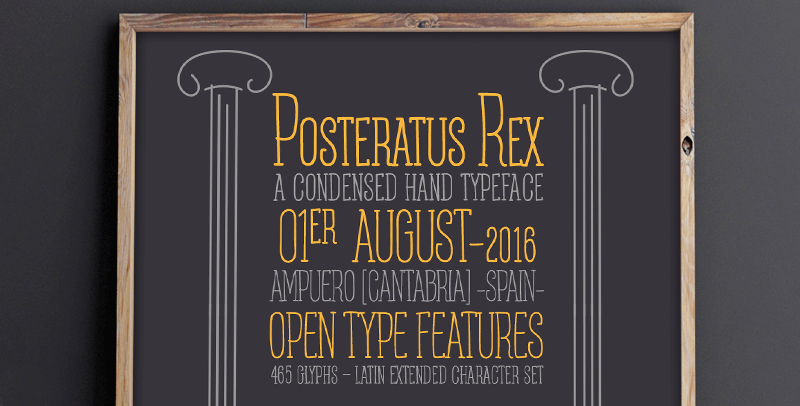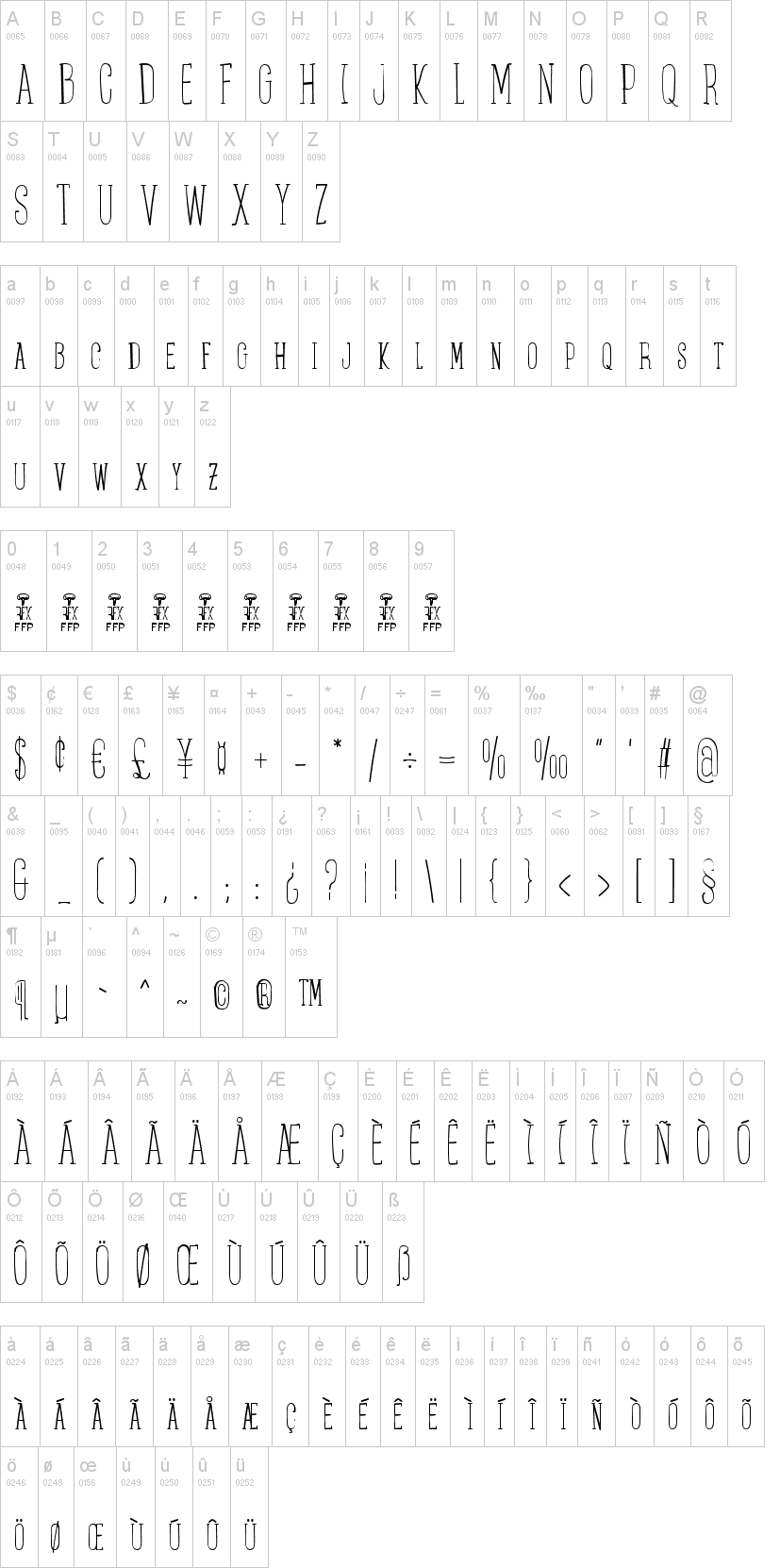
Note of the authorPosteratus Rex is a very condensed typeface handwritten with small slab-serif and lowercase letters in small caps, the font has a large high contrast between the upper and lower case. It has a set of numbers in small caps.